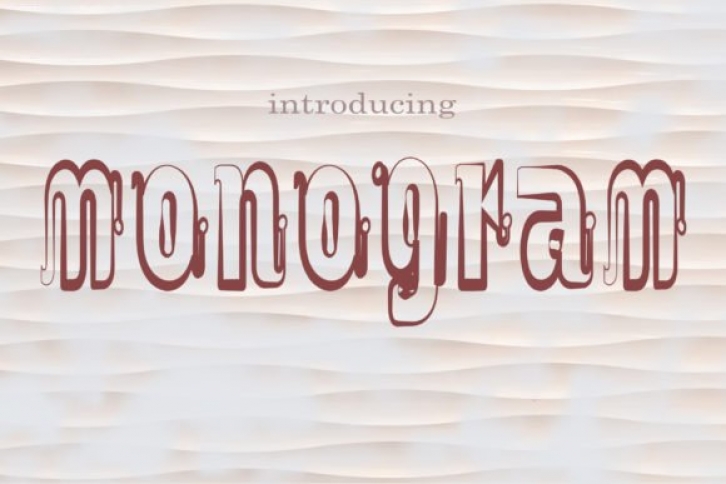
Monogram is a bold and simple lettered display font. Chunky lettered and natural, this font will make each of your formal and informal designs stand out.